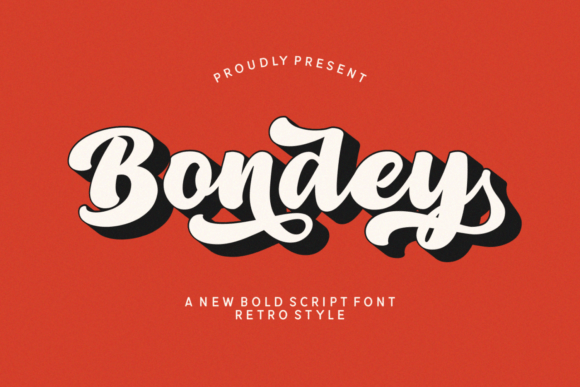
The Retro Charm of Bondey Font: A Designer’s Delight
I still remember the time I was working on a vintage-themed poster project, and I just couldn’t find the right font to capture that nostalgic feel. My client wanted something bold, playful, and reminiscent of the good old days. That’s when I stumbled upon Bondey Font, a bold retro script font that instantly stole my heart. In this article, I’ll share my experience with Bondey, its features, and how to make the most of it in your designs.
First Impressions: What I Love About Bondey
Bondey Font has been a game-changer for my design projects, and here’s why:
- ✨ Smooth Curves and Strong Lines: Bondey’s unique blend of smooth curves and strong lines gives it a distinctive look that’s both fun and sophisticated.
- ✅ Perfect for Headlines: This font is designed to make a statement, making it ideal for eye-catching headlines and titles.
- 🎉 Vintage Flair: Bondey’s retro vibe adds a touch of nostalgia to any project, making it perfect for vintage-themed designs, posters, and invitations.
The Not-So-Perfect: A Few Quirks
While Bondey is an amazing font, it’s not without its limitations:
- 🤔 Limited Use in Body Text: Due to its bold and playful nature, Bondey might not be the best choice for body text or long paragraphs.
- ⚠️ Kerning Issues: As with any font, kerning can be a bit tricky, especially when using Bondey in larger sizes.
Exploring Alternatives: Similar Fonts to Bondey
If you love Bondey, you might also enjoy these similar fonts:
- Kwadrant: A modern script font with a geometric twist, perfect for bold headlines and titles.
- Rouge Script: A luxurious script font with a vintage feel, ideal for high-end branding and packaging.
- Lobster: A classic script font with a playful vibe, great for seafood-themed designs and casual branding.
- Pacifico: A beautiful script font with a relaxed, beachy feel, perfect for travel and lifestyle designs.
The Story Behind Bondey: Designer Inspiration
Bondey Font was inspired by the classic scripts of the 1950s and 60s, with a modern twist. Its designer aimed to create a font that would evoke a sense of nostalgia and playfulness, while still being versatile and easy to read. The result is a font that’s both retro and contemporary, perfect for a wide range of design projects.
| What is Bondey Font best used for? | Bondey Font is ideal for eye-catching headlines, posters, invitations, and branding projects that require a touch of nostalgia and playfulness. |
| Is Bondey suitable for body text? | While Bondey can be used for short paragraphs, it’s not recommended for long body text due to its bold and playful nature. |
| Is Bondey available in different styles or weights? | Bondey Font comes in a single style, but its versatility and range of OpenType features make it suitable for a variety of design applications. |